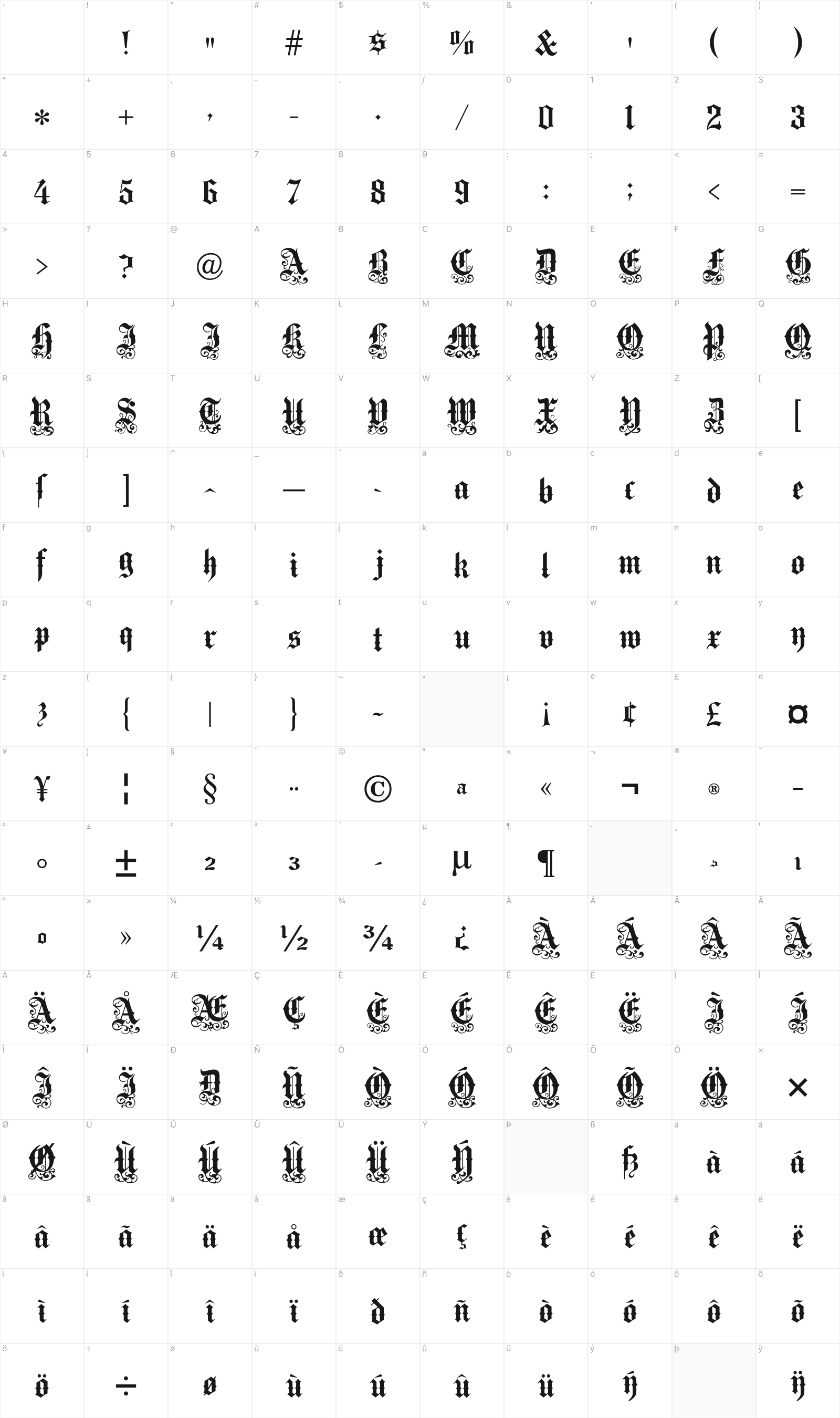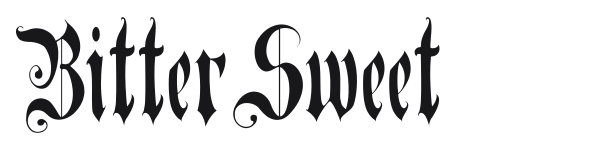
Medici Text
Medici Text is a bold blackletter face from Dieter Steffmann, one of the most dedicated digitizers of historical European typefaces. The letterforms follow the dense, vertical rhythm of traditional Textura scripts, with ornate detailing and tightly packed strokes that recall medieval German manuscripts and early printed books. Best reserved for headlines, drop caps, and decorative use where the heavy gothic character can read clearly.